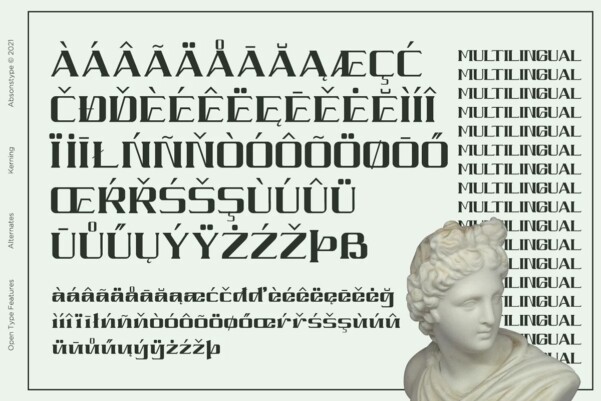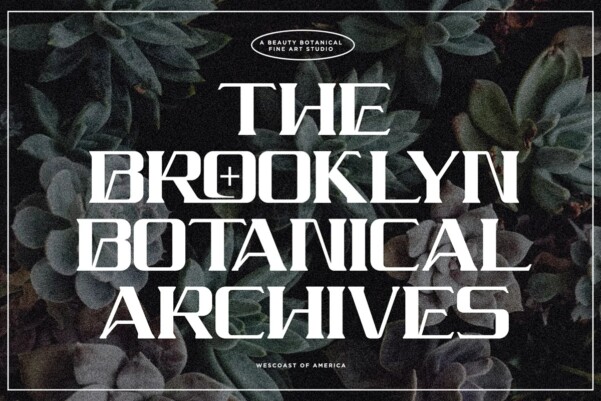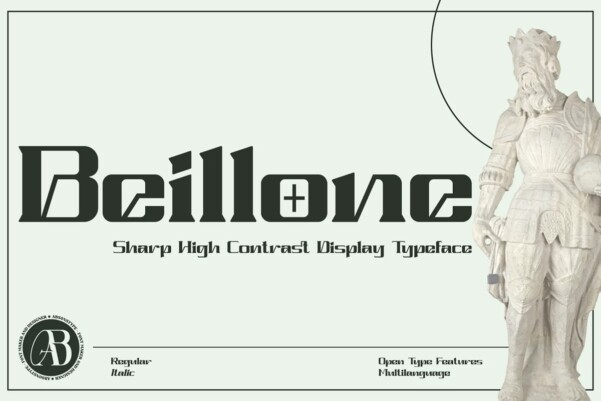
Beillone Font
Beillone Font, a display font sporty elegant, classic & stylish masculine. It’s strong, classy and modern all wrapped into one, and surely can not be missed in your font collection.
Beillone is a variable font family which means it comes in Regular & Italic. This font is not only versatile but the definition of elegance & class. It’s a combination of luxury, and high fashion all rolled into one. Don’t wait to add this luxury font family to your collection and start designing straight away.